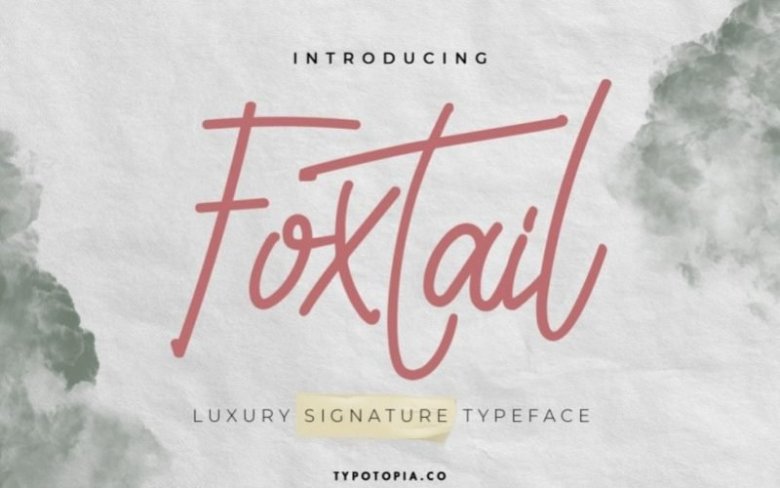
Foxtail Display Font Free
Typotopia Proudly Present Foxtail The Handmade Script Font. This Fonts Comes is a bold connected script font with a clear style and dramatic movement. Every single letters have been carefully crafted to make your designs looks better.
Foxtail Font is the great choice for several purpose, such as watermark, logo, business card design, quotes, album cover, invitation letter, stationery, and many other design project that need handwriting taste.